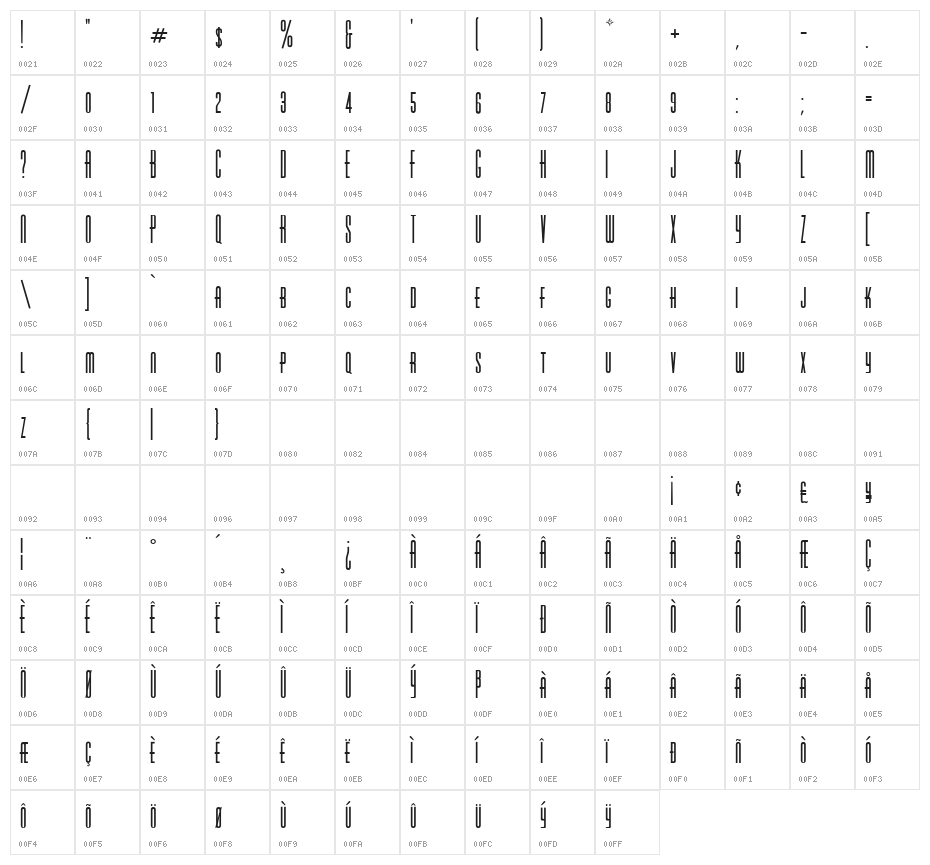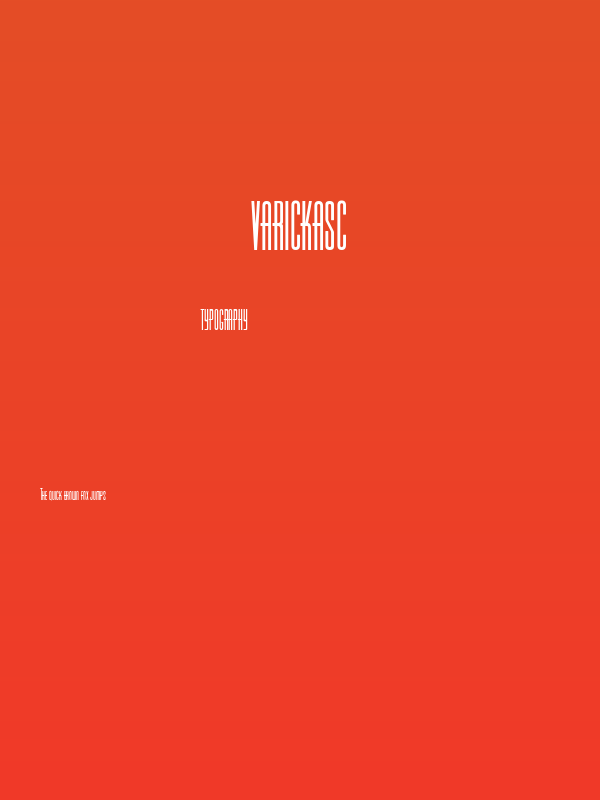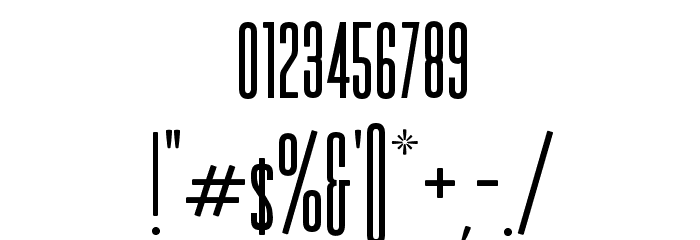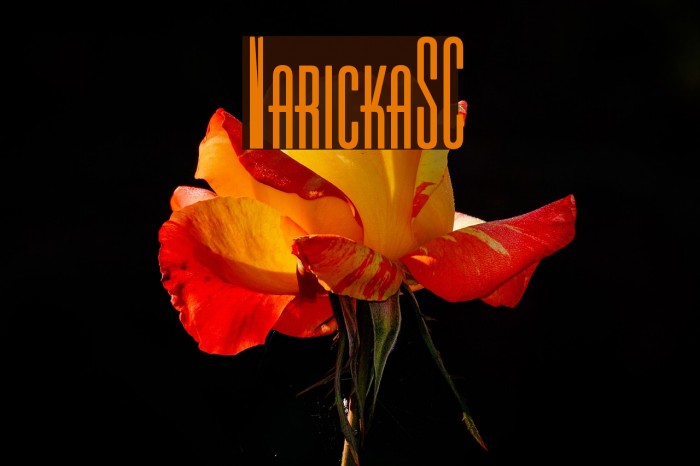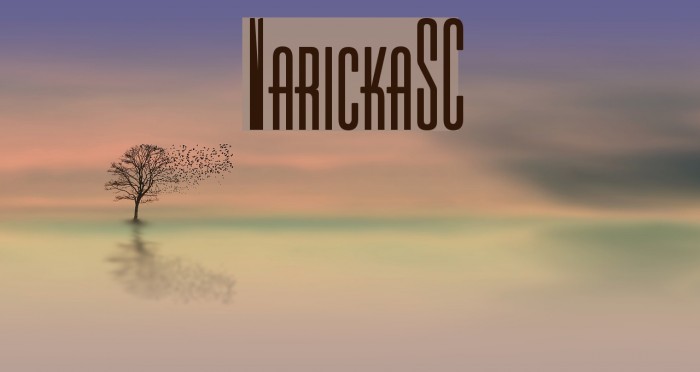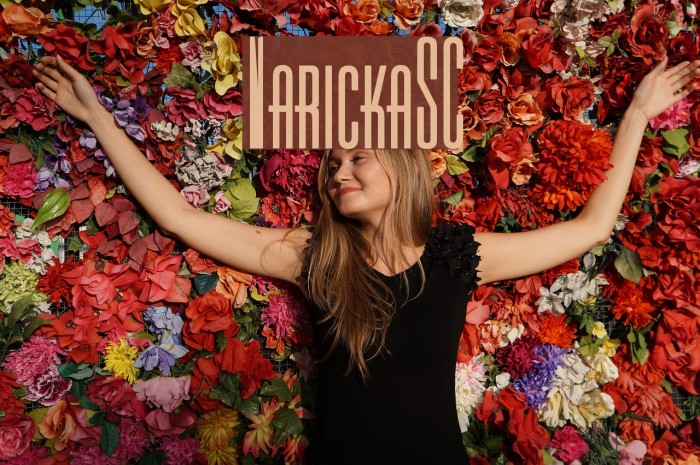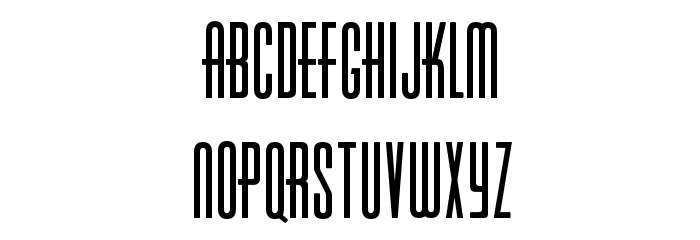
VarickaSC Font
VarickaSC Description
This font features a tall and narrow design, characterized by its condensed letterforms and high vertical emphasis. The uppercase letters are particularly elongated, giving the font a sleek and modern appearance. The lowercase letters maintain a similar style, ensuring consistency throughout. The numerals are equally narrow, complementing the overall aesthetic. Special characters are designed with the same vertical emphasis, making them blend seamlessly with the rest of the typeface. This font's unique style makes it stand out, suitable for projects that require a distinct and modern look.
| Proposed Projects | Ideal for branding, posters, and editorial design where a modern and distinctive look is desired. |